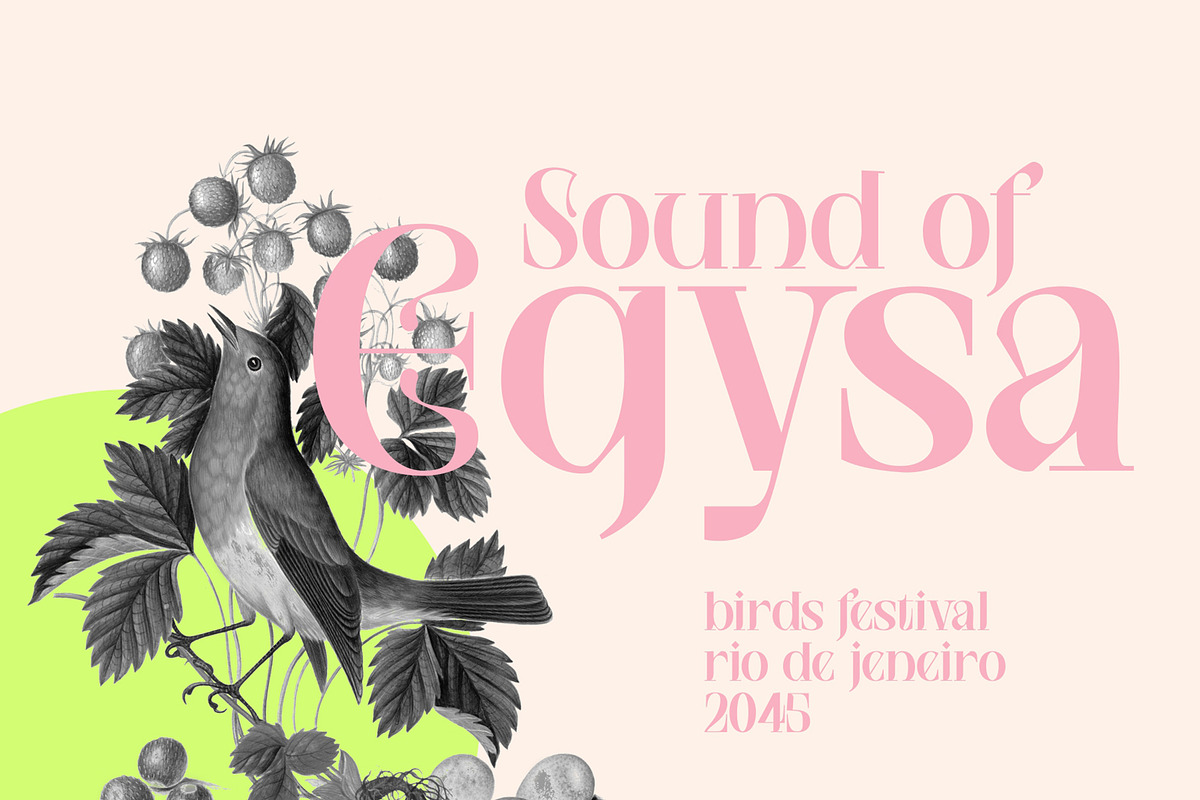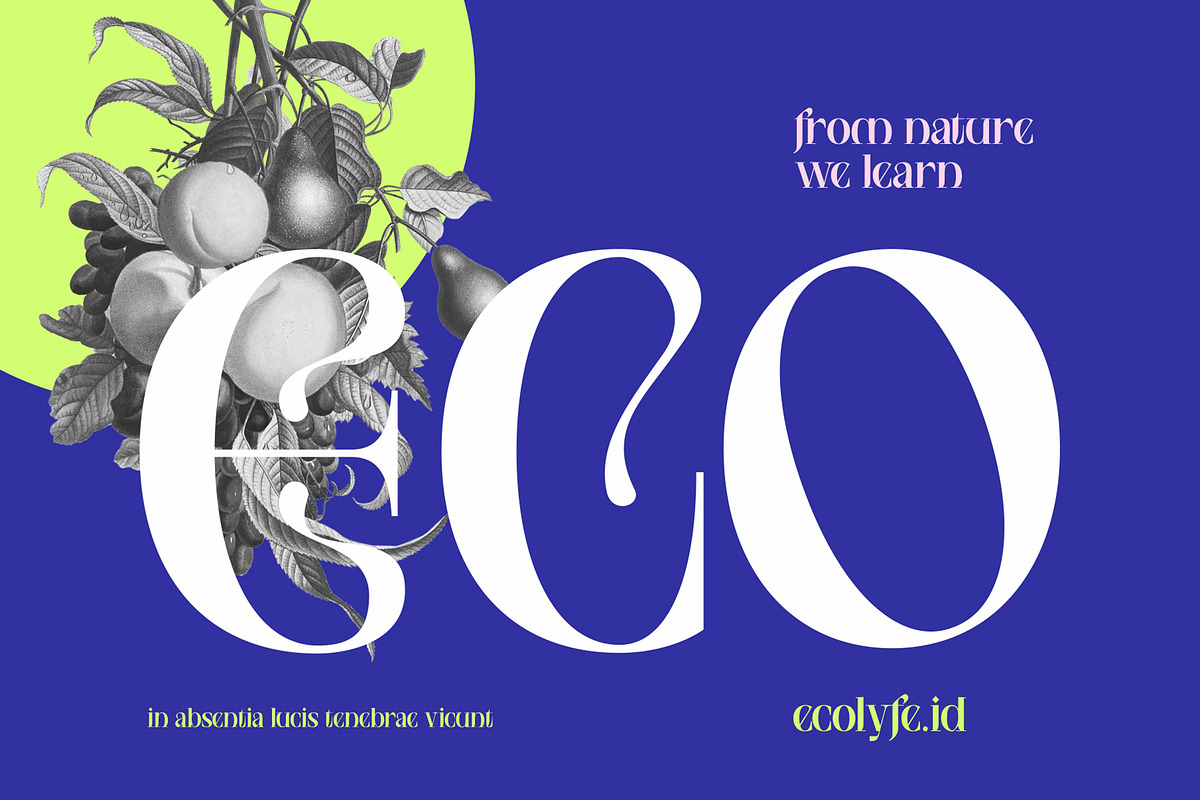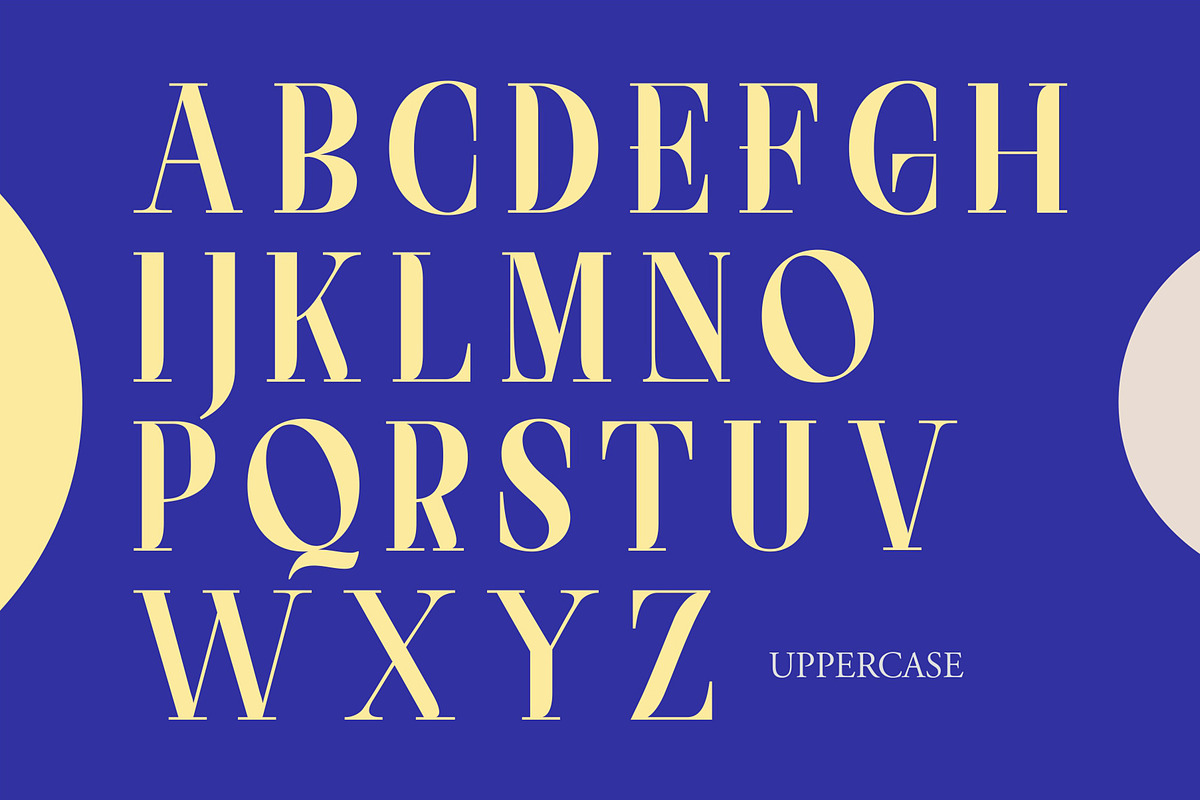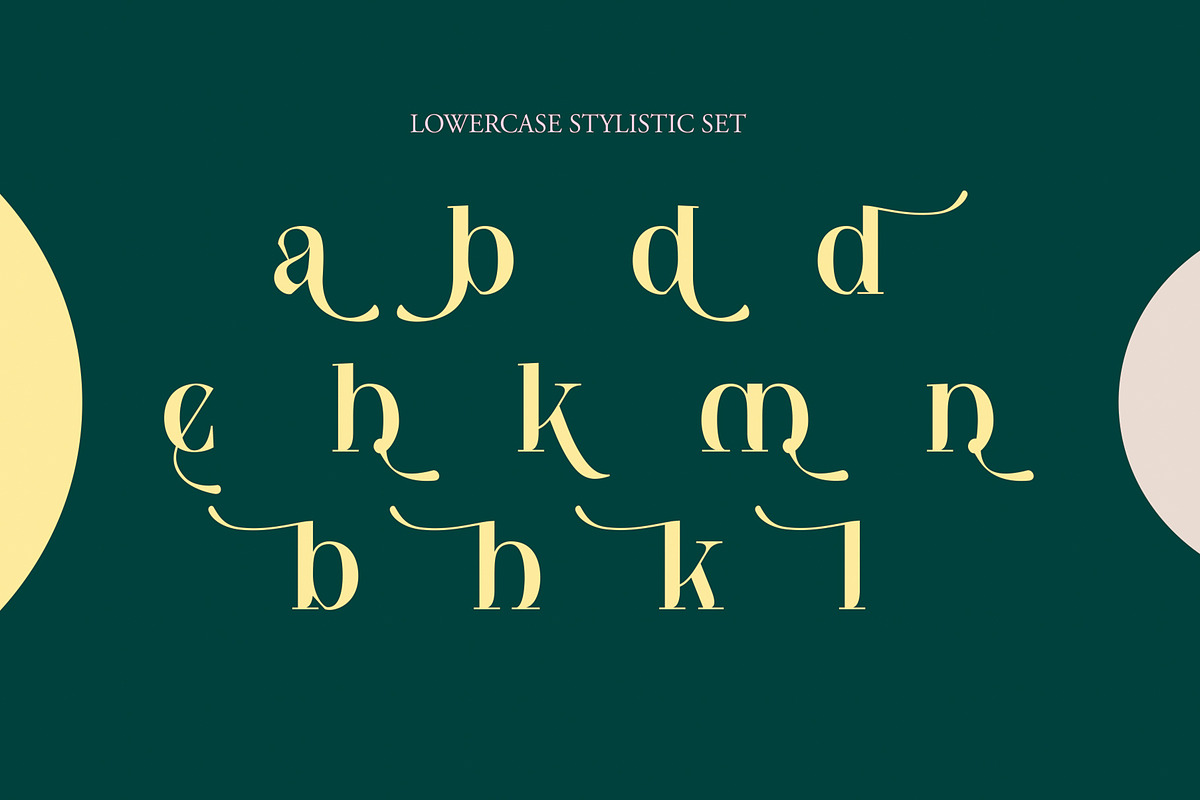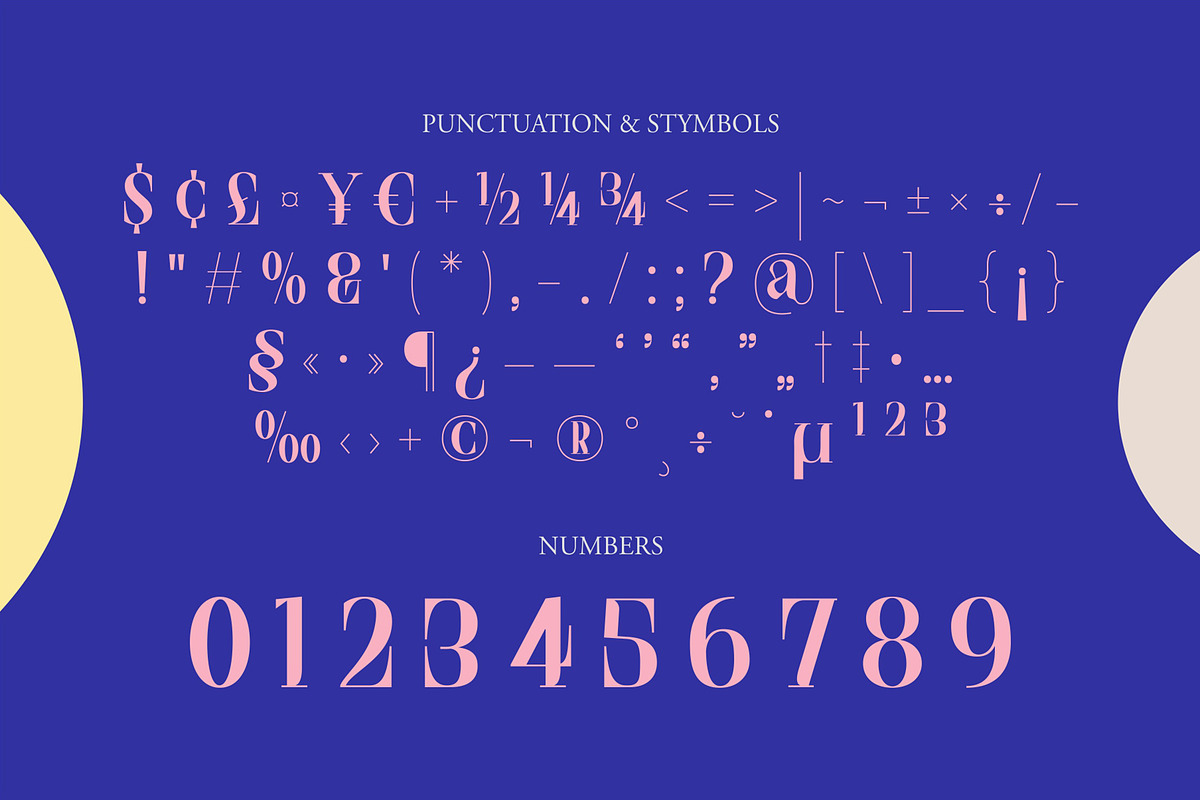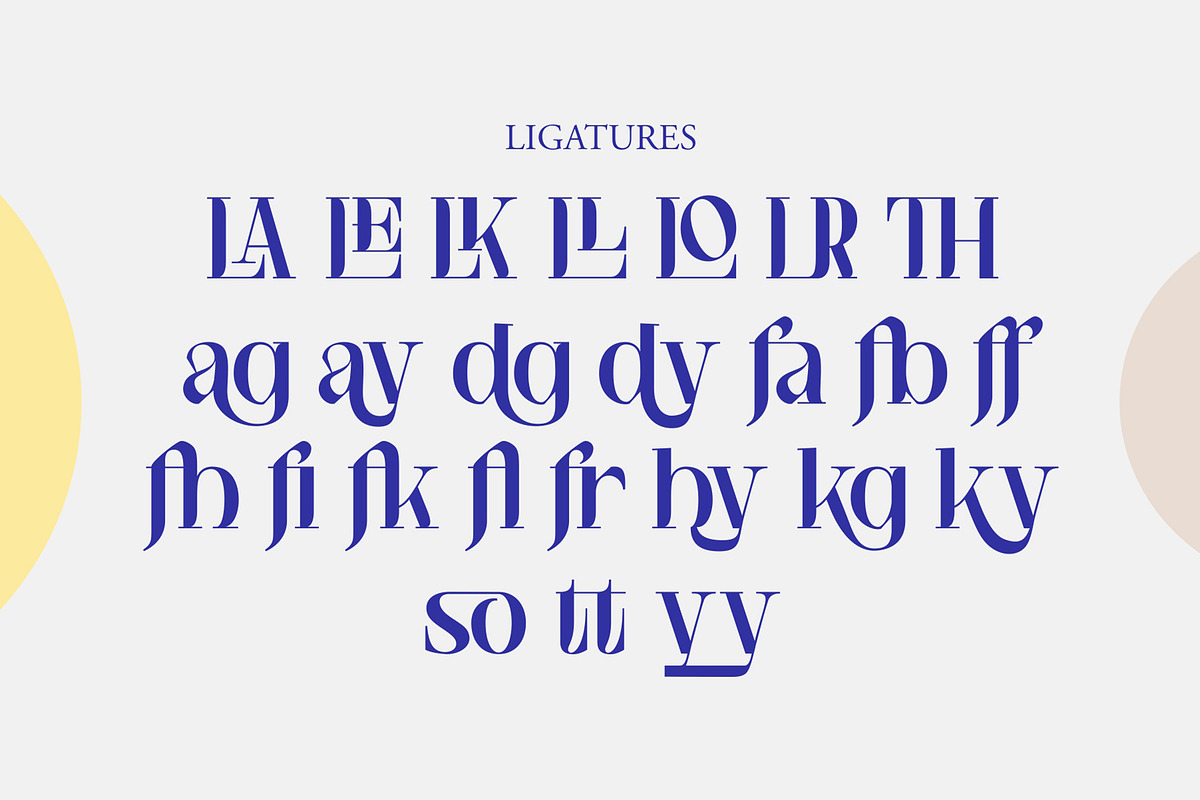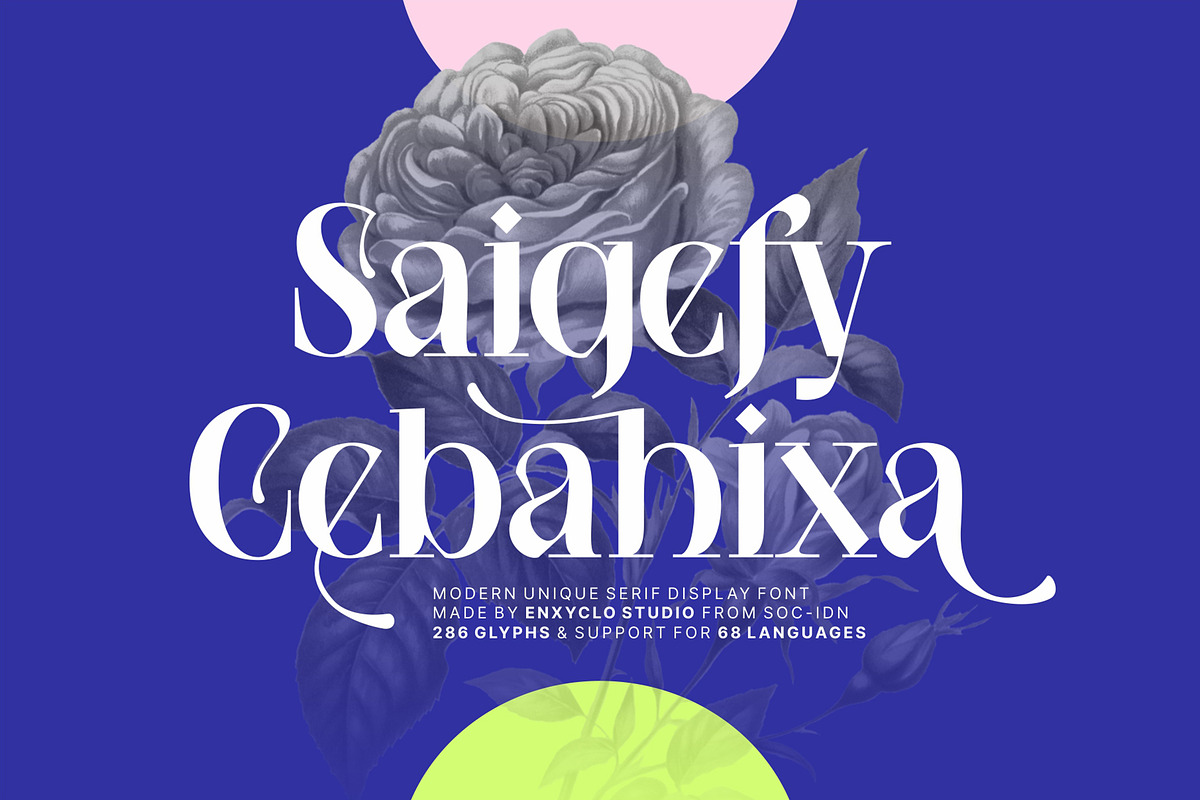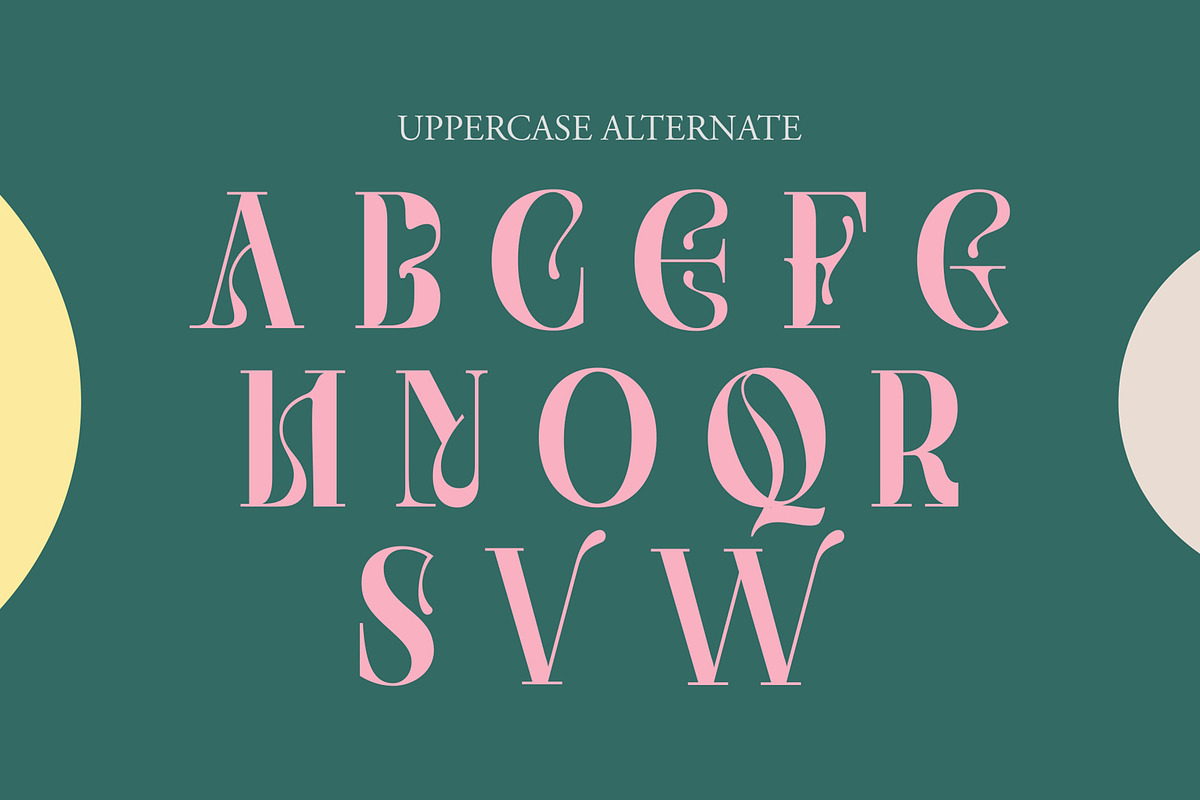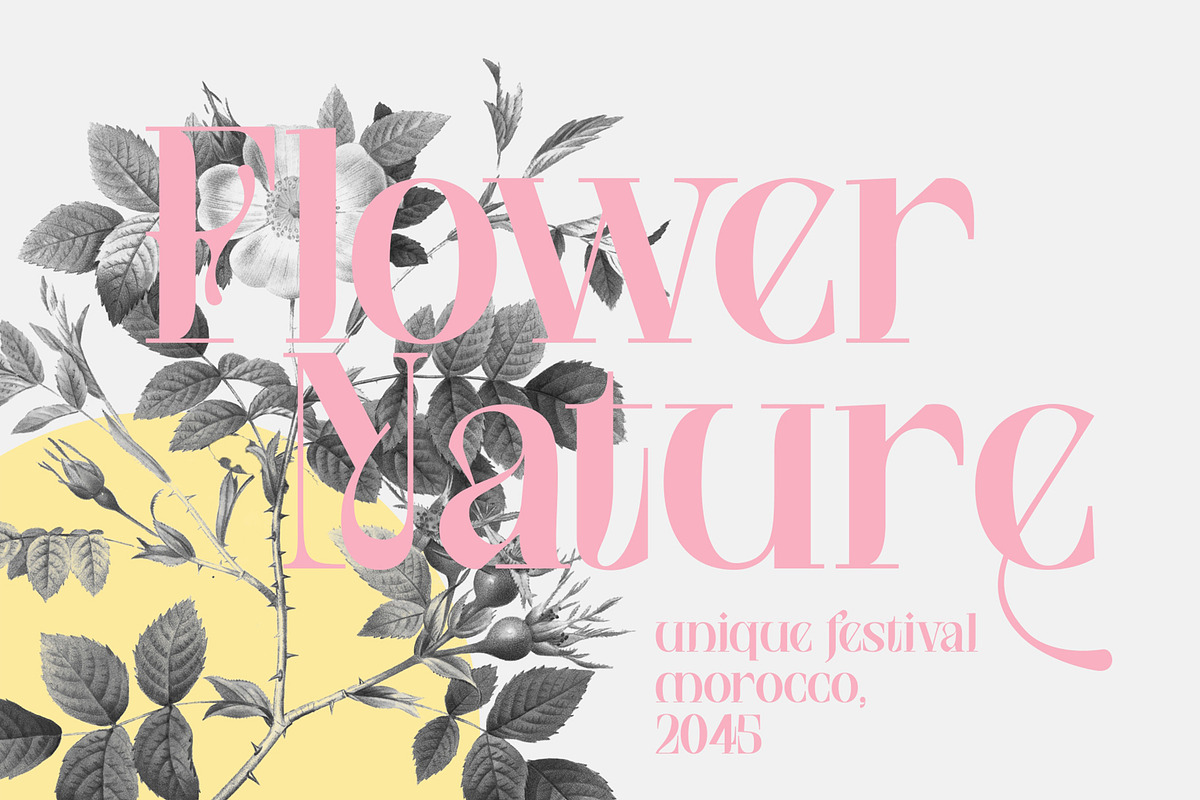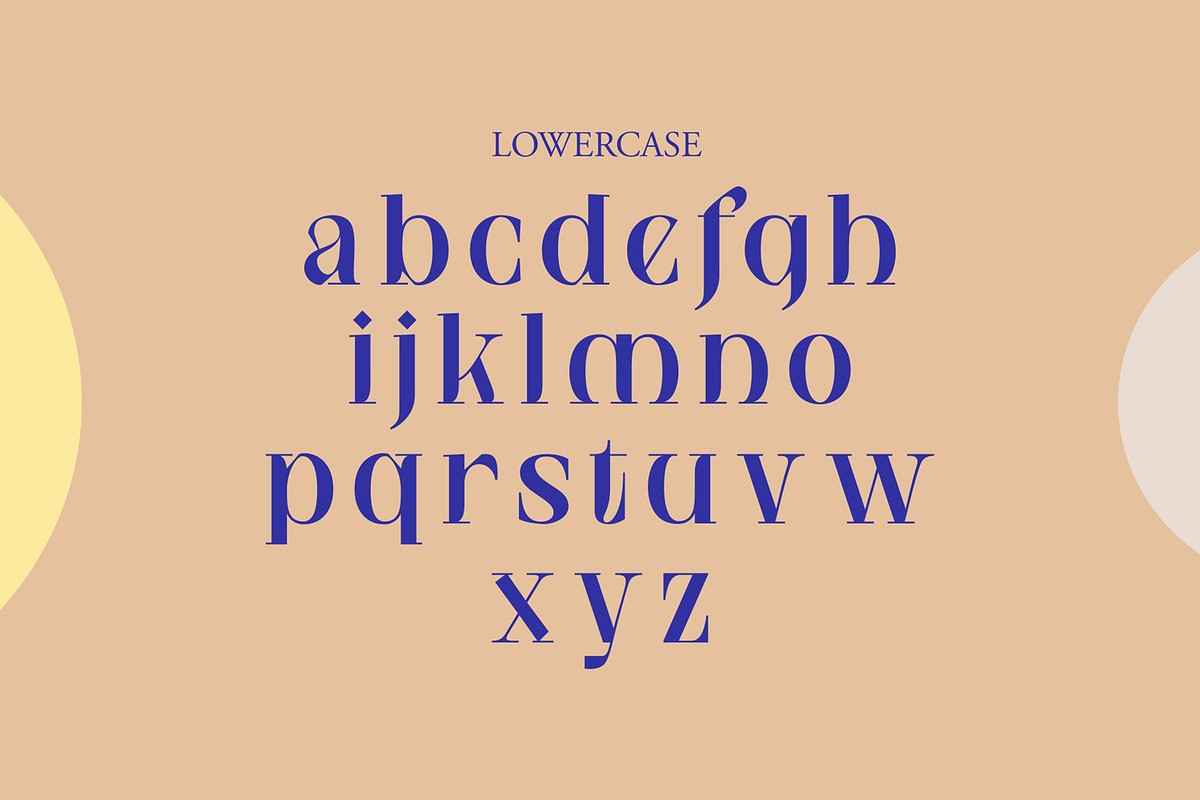
NCL Saigefy Cebahixa - Modern Serif
NCL SAIGEFY CEBAHIXA is a modern unique serif display font. Masterfully designed to become a true favorite, this font has the potential to bring each of your creative ideas to the highest level! It was purposely crafted to be used in large point sizes, although it doesn’t lose its magic in small point sizes. It is perfect for wedding, headline, billboard, magazines, website, titles, poster, branding, and logos. No matter the topic, this font will be an incredible asset to your fonts’ library, as it has the potential to elevate any creation. With this beautiful font, absolutely you can make your project stand out from the rest.
- Contains 286 Glyphs
- Numeral, Punctuation & Symbols
- Unique Stylistic Set
- Support for 68 Languages: Afrikaans, Albanian, Asu, Basque, Bemba, Bena, Breton, Catalan, Chiga, Cornish, Danish, Dutch, English, Estonian, Faroese, Filipino, Finnish, French, Friulian, Galician, German, Gusii, Icelandic, Indonesian, Irish, Italian, Kabuverdianu, Kalenjin, Kinyarwanda, Luo, Luxembourgish, Luyia, Machame, Makhuwa-Meetto, Makonde, Malagasy, Manx, Morisyen, North Ndebele, Norwegian Bokmål, Norwegian Nynorsk, Nyankole, Oromo, Portuguese, Quechua, Romansh, Rombo, Rundi, Rwa, Samburu, Sango, Sangu, Scottish Gaelic, Sena, Shambala, Shona, Soga, Somali, Spanish, Swahili, Swedish, Swiss German, Taita, Teso, Uzbek (Latin), Volapük, Vunjo, Zulu.